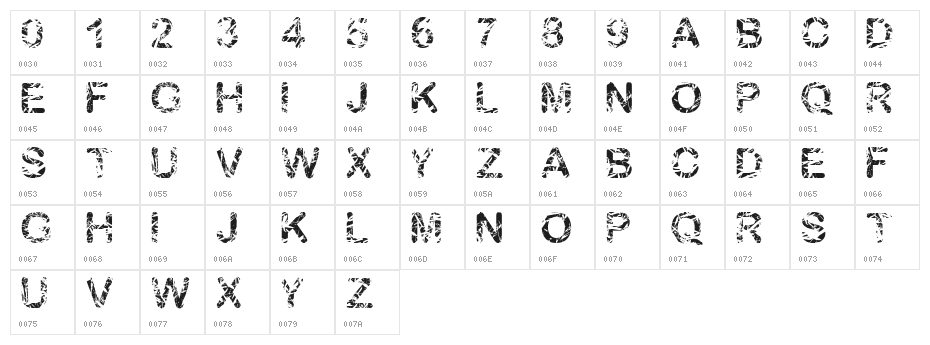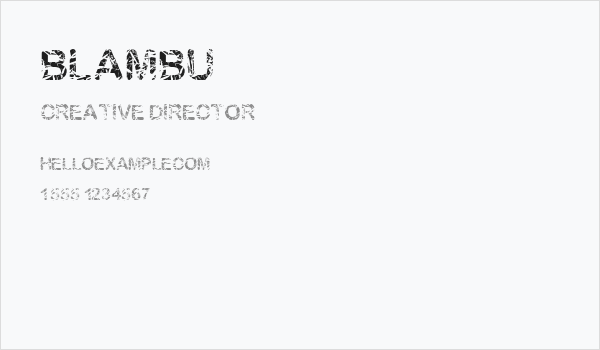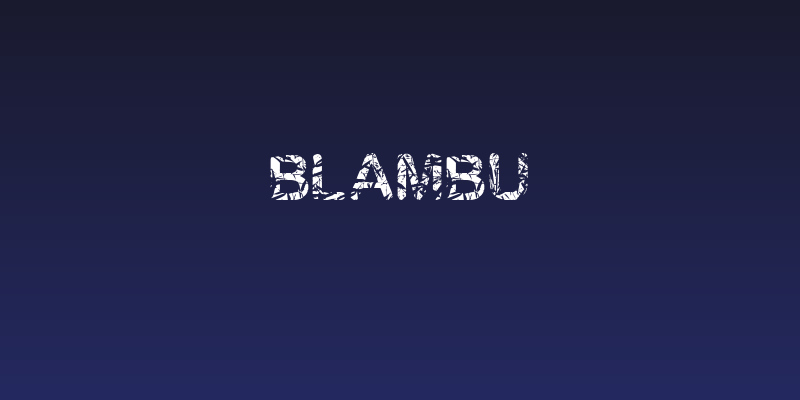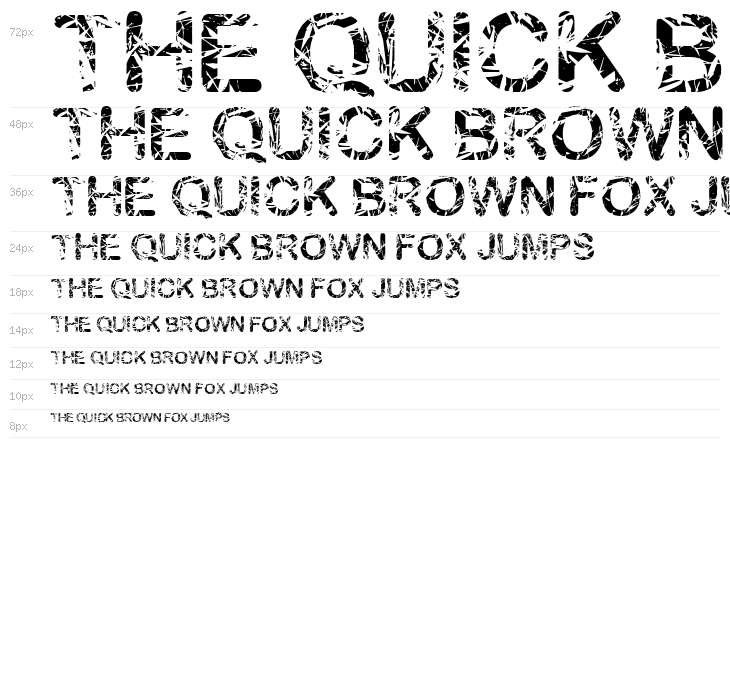
blambu Font
blambu Description
This font features a unique, distressed style with a fragmented, shattered appearance. The characters are bold and display a high level of texture, making them stand out with a rugged, edgy feel. The uppercase and lowercase letters, along with numbers, maintain a consistent design, characterized by irregular patterns that suggest a sense of chaos or destruction. This font is ideal for projects that require a strong visual impact, such as posters, album covers, or branding for edgy or alternative products. Its distinctive style captures attention and conveys a sense of boldness and creativity.
| Proposed Projects | Ideal for posters, album covers, and branding for alternative products. |